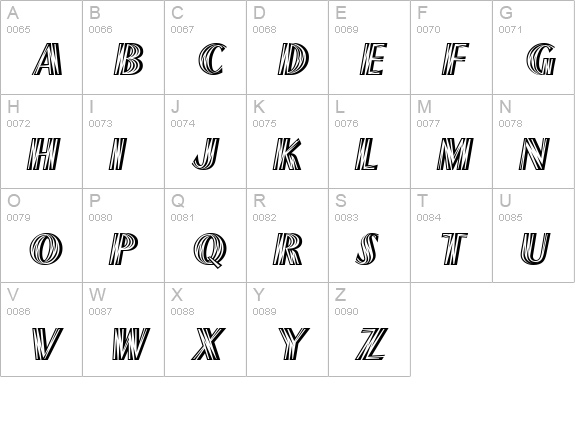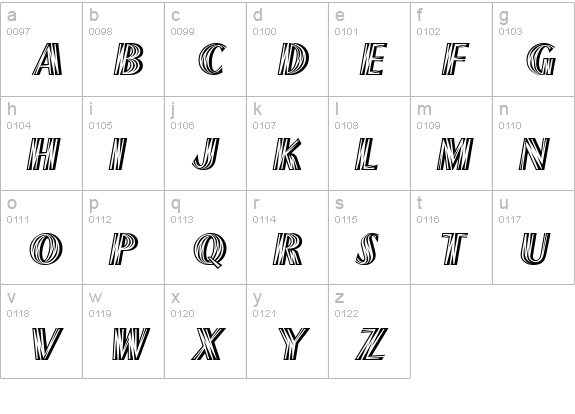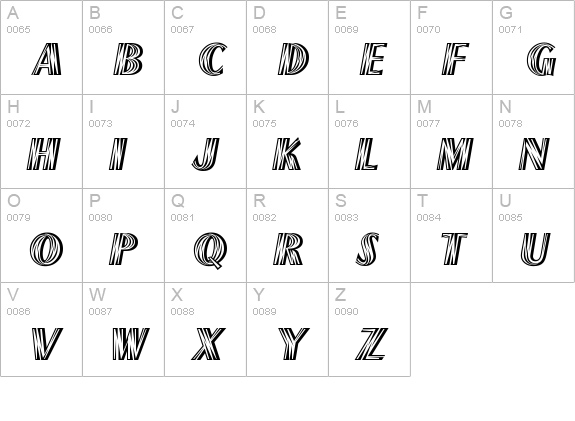
Paris Flash ICG Font Details
Paris Flash ICG is a stunning and eye-catching font that exudes a sense of elegance and sophistication. Its refined and stylish design makes it perfect for adding a touch of class to any project. The bold and striking letterforms of Paris Flash ICG are sure to make a lasting impression. What sets Paris Flash ICG apart is not just its impeccable design, but also the fact that it is available for free. Yes, you read that right - this exceptional font can be downloaded for free at FontsMarket.com. Now, you don't have to worry about breaking the bank to achieve professional and high-quality typography. Whether you are designing a logo, creating a poster, or crafting a website, Paris Flash ICG is a versatile font that will elevate your work to new heights. Its versatility allows it to be used in a variety of contexts, from formal to modern, from print to digital. The clean and crisp lines of Paris Flash ICG ensure legibility, even at smaller sizes. This makes it a great choice for body text and paragraphs, as well as headlines and titles. Its carefully crafted curves and attention to detail make it a pleasure to read, adding a touch of sophistication to any written content. Paris Flash ICG is a font that demands attention, effortlessly drawing the eye with its bold and captivating presence. Its combination of elegance and boldness makes it a timeless choice that will never go out of style. Whether used sparingly or in abundance, this font is sure to make a statement and leave a lasting impression. So why wait? Head over to FontsMarket.com today and download Paris Flash ICG for free. Discover the endless possibilities this font offers and let your creativity soar. With Paris Flash ICG, you can bring a touch of Parisian charm and sophistication to your designs, making them truly unforgettable.